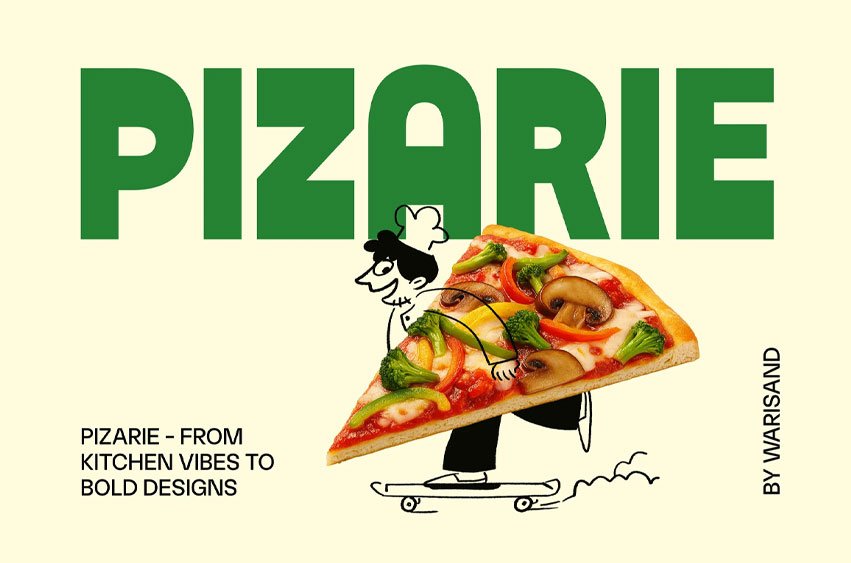
Pizarie Font is a bold and playful display font inspired by the delicious energy of street food culture and modern kitchen vibes. Designed to stand out in every food logo, pizza shop, coffee label, bakery packaging, cafe menu, or restaurant branding project, this font delivers a fresh and eye-catching personality. Its chunky letterforms and clean curves create a strong visual flavor that works perfectly for burger brands, candy packaging, ice cream promotions, and creative cooking content.
With its fun and expressive style, Pizarie brings warmth and personality into every design. Whether you are creating a kitchen brand identity, chocolate packaging, fast food poster, or stylish menu design, this font helps your visuals feel tasty, modern, and memorable. Perfect for food businesses that want a bold brand appearance with a friendly and energetic touch.
Designed for creatives who want stylish, functional, and flexible typography for business identities, promotional materials, and standout visual projects.